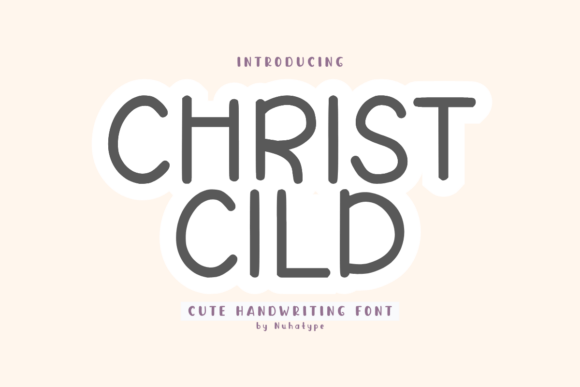
Christ Cild: A Font That Speaks to Your Brand
The Warmth of a Handcrafted Typeface
Christ Cild is more than just a font—it’s a visual voice that brings warmth, approachability, and personality to your digital content. Designed as a cute sans serif handwriting font, it captures the essence of natural, friendly, and soft typography. Its gentle curves and playful strokes make it ideal for creators who want to connect with their audience on a personal level.
Why Marketers Love Christ Cild
In the fast-paced world of digital marketing, first impressions matter. Christ Cild helps you stand out with its unique charm. Whether you're crafting social media posts, designing email headers, or creating campaign banners, this font adds a human touch that resonates with viewers. It's perfect for brands that want to feel authentic and relatable.
Visual Hierarchy and Readability
One of the key strengths of Christ Cild is its ability to create clear visual hierarchy. The font’s friendly curves and consistent spacing make it easy to read even in small sizes, which is essential for mobile users and social media feeds. When used in headlines or callouts, it draws attention without overwhelming the reader.
For example, a product launch announcement can benefit from Christ Cild’s readability and approachable style. Pair it with a clean sans serif font for body text to maintain balance and ensure clarity across all platforms.
Branding with Christ Cild
Christ Cild is not just a font—it's a branding tool. Its warm and friendly aesthetic aligns well with lifestyle brands, wellness companies, and creative studios. It can be used in logo design, packaging design, and brand identity to reinforce a sense of community and care.
When designing branded templates or promotional graphics, consider how Christ Cild contributes to your overall visual consistency. Its soft edges and natural flow help maintain a cohesive look across all your marketing materials, reinforcing brand recognition.
Designing for Social Media
Social media is where brands meet audiences, and Christ Cild excels in this space. Use it for Instagram posts, Pinterest pins, and YouTube thumbnails to create eye-catching visuals that stop users from scrolling. Its handcrafted look adds personality to your content, making it more engaging and memorable.
For instance, an inspirational quote graphic using Christ Cild can instantly evoke a sense of comfort and positivity. Similarly, a webinar banner with this font can set the tone for a welcoming and informative session.
Font Pairing Tips
While Christ Cild shines on its own, it also pairs beautifully with other typefaces. For a modern look, combine it with a clean sans serif font like Montserrat or Open Sans for captions and supporting text. If you're aiming for an editorial feel, pair it with a serif font like Playfair Display to add contrast and sophistication.
Remember, the goal is to maintain readability and visual harmony. Experiment with different combinations to find what works best for your brand’s message and aesthetic.
Readability Across Platforms
With the rise of mobile-first browsing, ensuring your fonts are legible on smaller screens is crucial. Christ Cild performs well in these scenarios due to its open letterforms and balanced spacing. However, always test your designs on various devices to ensure optimal performance.
When creating thumbnails or preview images, keep text short and impactful. Christ Cild’s friendly style makes it ideal for headlines and call-to-action buttons, where quick readability is key.
Using Christ Cild in Campaigns
Christ Cild is versatile enough to support a wide range of campaigns. From seasonal promotions to personal branding efforts, it offers a consistent and appealing visual language. Consider using it for online shop promotions, content series announcements, or branded templates to maintain a cohesive brand voice.
For a sale announcement, use Christ Cild in bold and bright colors to grab attention. For a product teaser, pair it with subtle background textures to enhance the storytelling aspect. Each use case benefits from the font’s natural charm and approachable style.